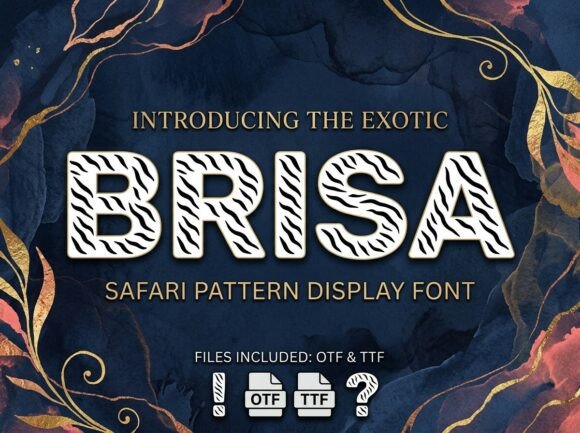
Introducing Brisa Font: The Ultimate Decorative Display Font for Creators
Are you tired of using the same old fonts for your designs? Look no further than Brisa Font, a stunning decorative display font that’s sure to turn heads. With its unique artistic elements and strong visual personality, this font is perfect for creators who want to break away from the ordinary and make a statement.
What Makes Brisa Font So Special?
Brisa Font is a versatile decorative display font that’s designed to be the center of attention. Its unique artistic elements and strong visual personality make it perfect for a variety of design projects, from bold headlines and artistic logos to creative packaging and more. Whether you’re a graphic designer, artist, or crafter, this font is sure to inspire your creativity and help you stand out from the crowd.
Key Features of Brisa Font
- Unique Artistic Elements: Brisa Font features unique artistic elements that set it apart from other fonts. Each letter is carefully crafted to make a statement and add a touch of elegance to your designs.
- Strong Visual Personality: This font has a strong visual personality that’s sure to grab attention. Its bold and eye-catching design makes it perfect for headlines, logos, and other design elements that need to stand out.
- Versatile: Brisa Font is versatile enough for a variety of design projects, from bold headlines and artistic logos to creative packaging and more.
- Professional and Polished Finish: Despite its bold and artistic design, Brisa Font maintains a professional and polished finish that’s perfect for commercial and personal projects.
⚠️ IMPORTANT NOTE BEFORE PURCHASE: Brisa Font is an ALL-CAPS (Uppercase Only) display typeface. It does not include lowercase letters. It is specifically designed for high-impact headlines, logos, and decorative initials where every letter is a work of art.
Why Choose Brisa Font?
There are many reasons why Brisa Font is the perfect choice for designers and crafters. Here are just a few:
- Stand Out from the Crowd: With its unique artistic elements and strong visual personality, Brisa Font is sure to help you stand out from the crowd and make a statement.
- Perfect for Creative Projects: This font is perfect for creative projects that require a bold and eye-catching design.
- Professional and Polished Finish: Despite its bold and artistic design, Brisa Font maintains a professional and polished finish that’s perfect for commercial and personal projects.
How to Use Brisa Font
Brisa Font is easy to use and can be incorporated into a variety of design projects. Here are a few ideas to get you started:
- Headlines and Titles: Use Brisa Font to create bold and eye-catching headlines and titles for your designs.
- Logos and Branding: This font is perfect for creating artistic logos and branding elements that make a statement.
- Packaging and Labels: Use Brisa Font to create creative packaging and labels that stand out from the crowd.
In conclusion, Brisa Font is a stunning decorative display font that’s perfect for creators who want to break away from the ordinary and make a statement. With its unique artistic elements and strong visual personality, this font is sure to turn heads and inspire your creativity. Whether you’re a graphic designer, artist, or crafter, Brisa Font is the perfect choice for your next design project.